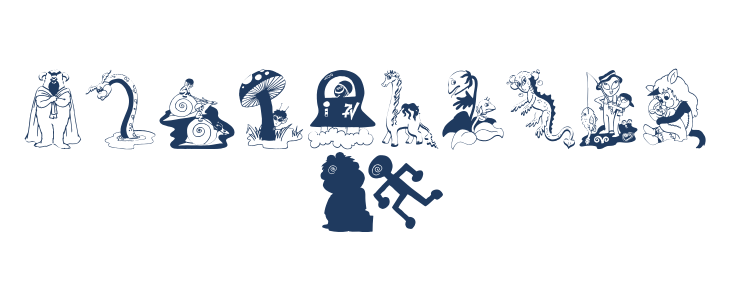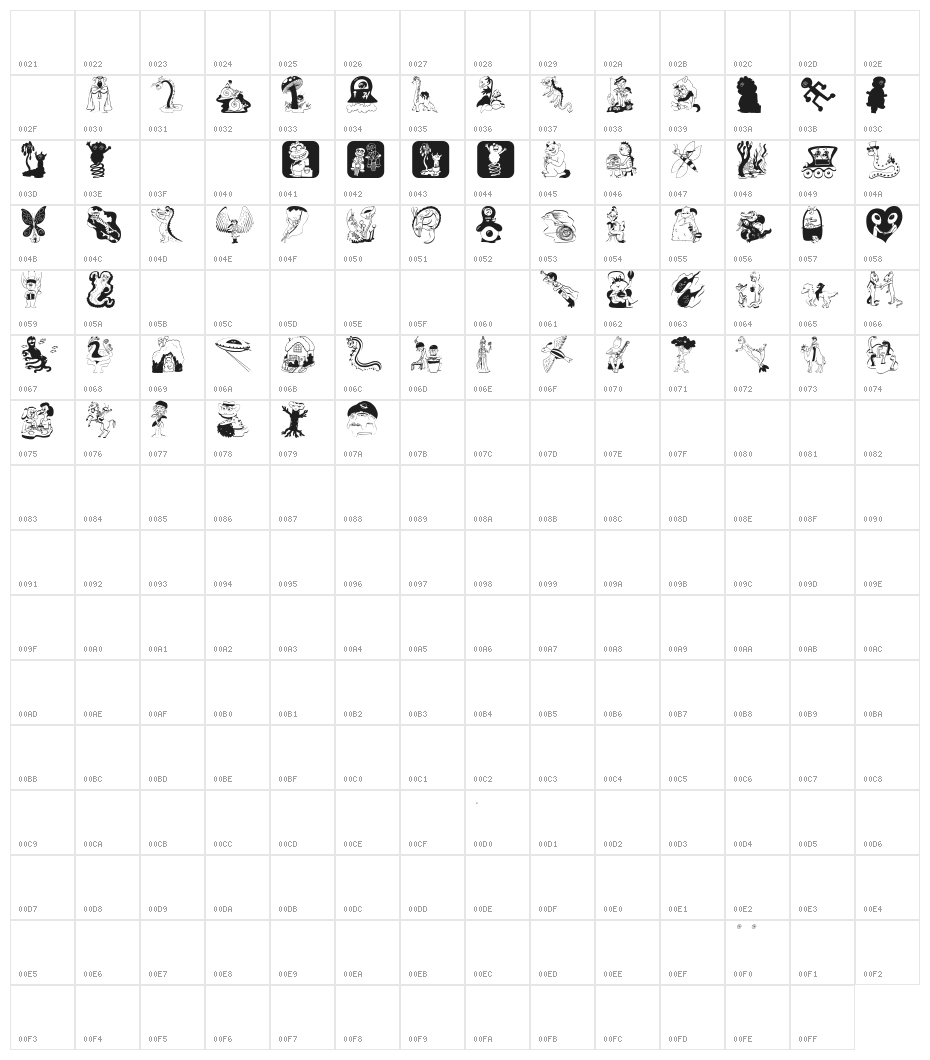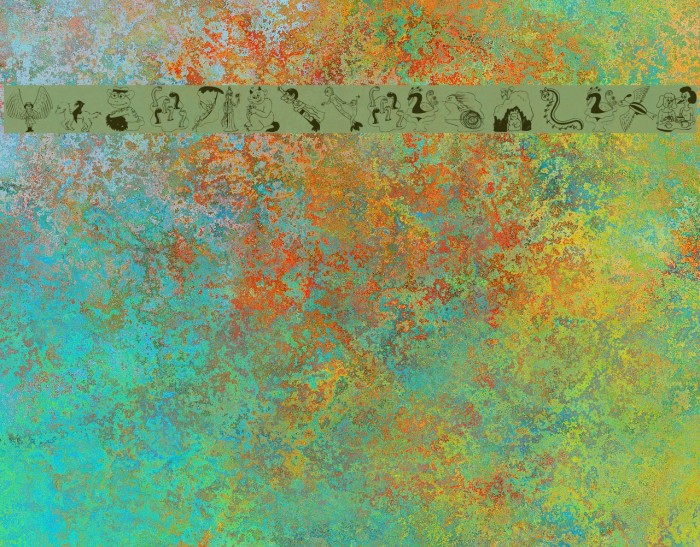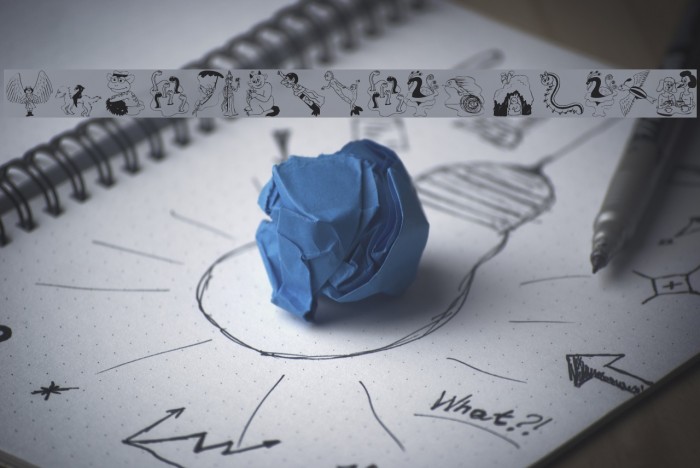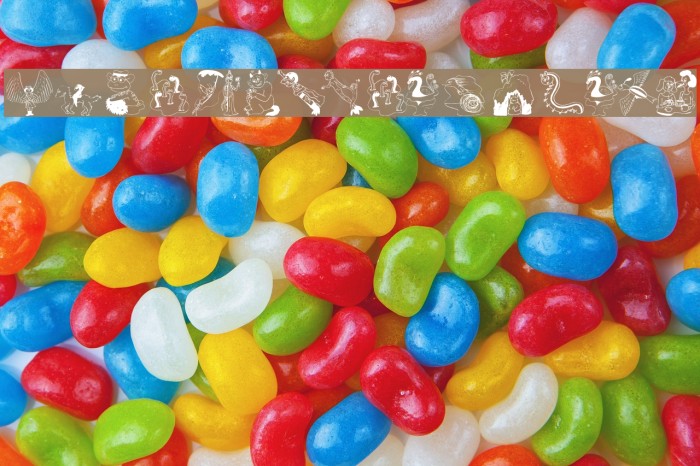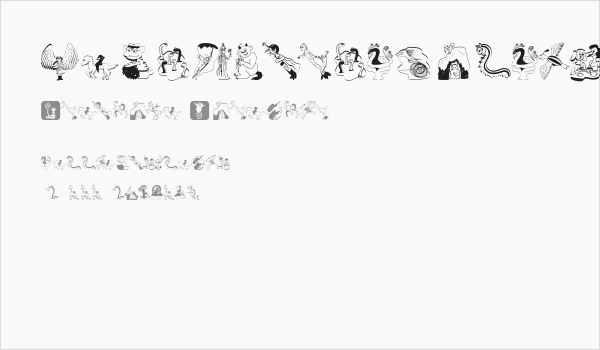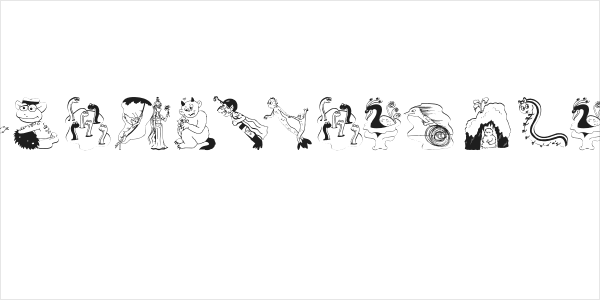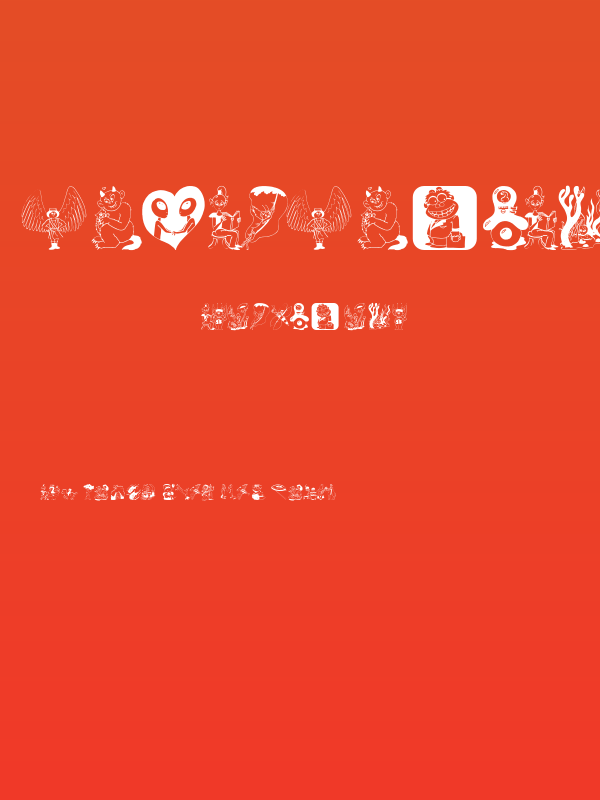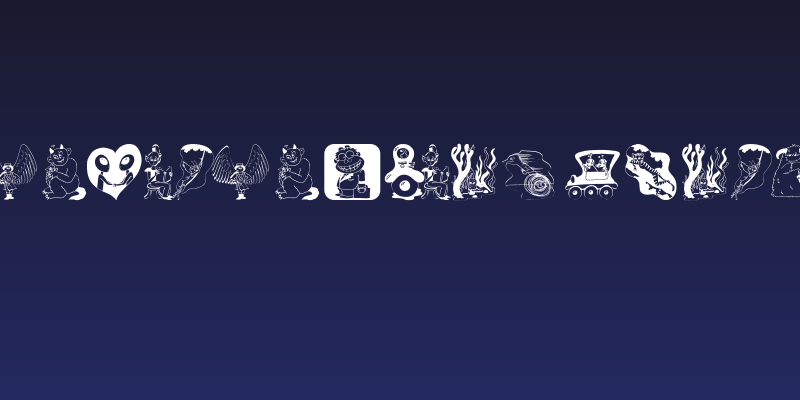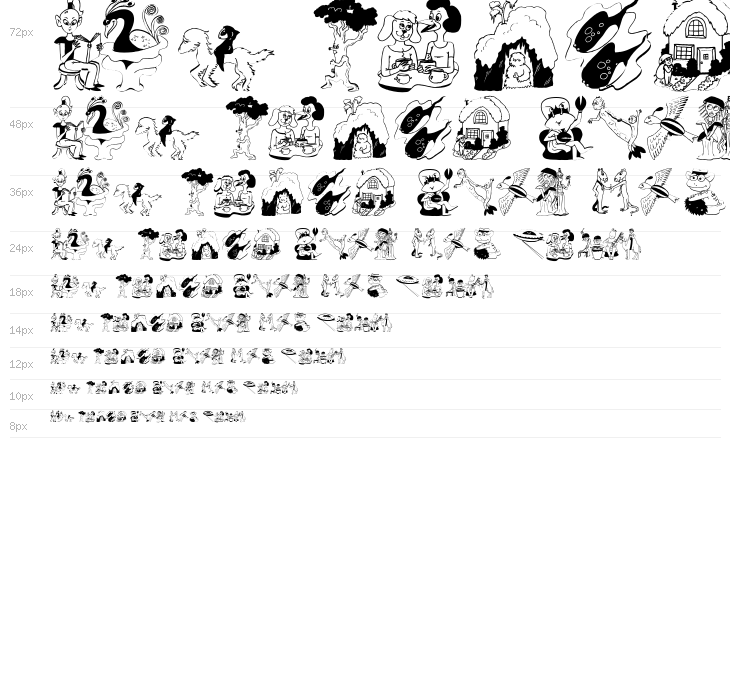
NextOnEarthSilhou Font
NextOnEarthSilhou Description
A highly decorative and whimsical display font composed of unique, hand-drawn cartoon characters and creatures forming each glyph, with playful and imaginative illustrations replacing traditional letterforms.
| Overall Style | Whimsical, Playful, Decorative |
| Use Case | Logos, Headlines, Posters, ChildrenΓ’β¬β’s media |
| Proposed Projects | ChildrenΓ’β¬β’s books, posters, party invitations, comic covers, creative branding, themed event materials. |